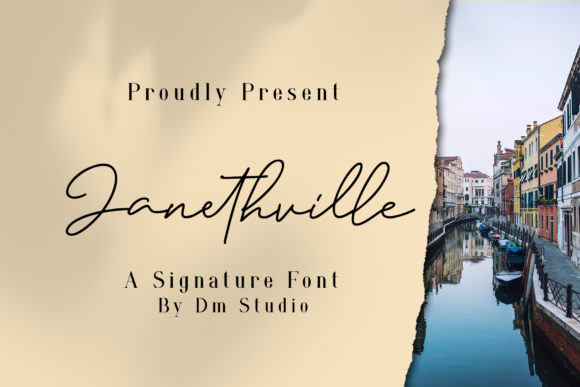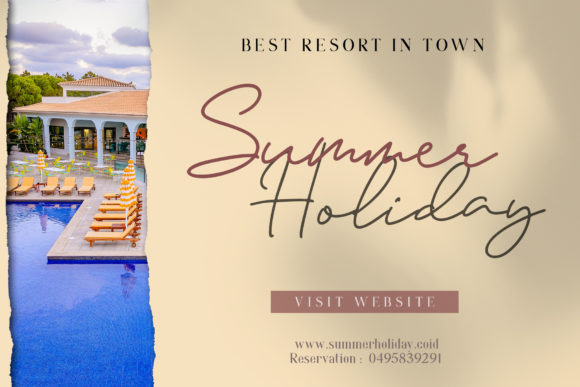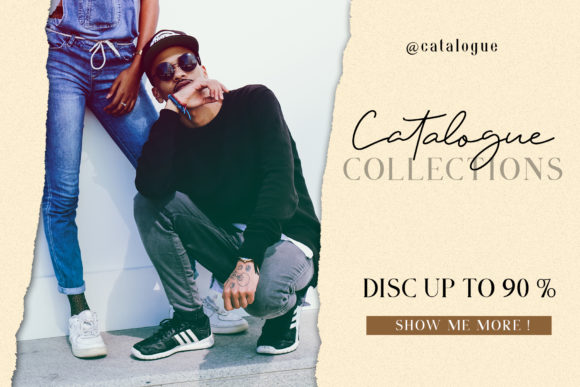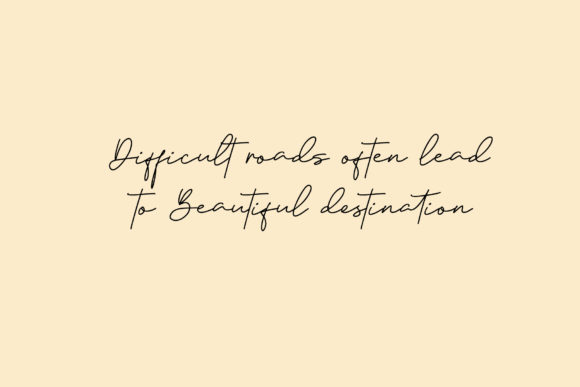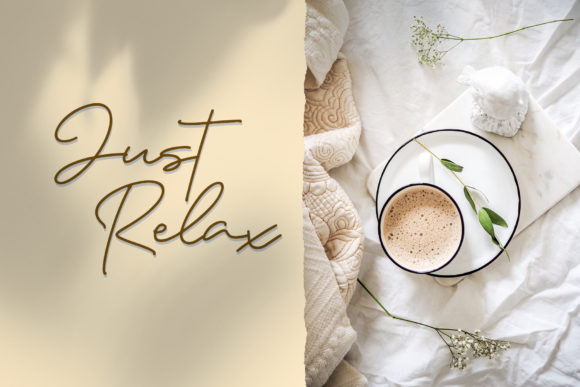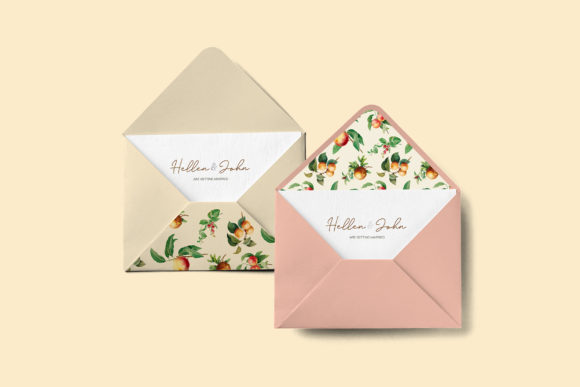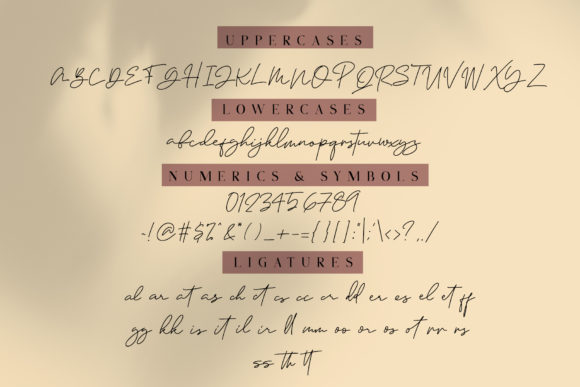
HomeScript FontsJanethville Font Script Fonts Janethville Font FacebookXPinterestWhatsApp Janethville Font Poster 2 Janethville Font Poster 3 Janethville Font Poster 4 Janethville Font Poster 5 Janethville Font Poster 6 Janethville Font Poster 7 About Janethville Font Janethville is a unique and light handwritten font with a bold twist. Get inspired by its unique charm! DOWNLOAD ON CREATIVE FABRICAThis font is sold and delivered by Creative Fabrica. Font Canyon may earn a commission if you buy through this link. People also explored Mikey Jax Bokeseni UltraBlack Expanded Italic Font Virginia Font Shally Script Font Curious Garlic Font Beone Extra Bold Font Rosallinda Signature Font Pillowway Font Laquittea Script 286 0 TagsJanethville Font Previous articleMonterai FontNext articleCamelia Font LEAVE A REPLY Cancel reply Comment: Please enter your comment! Name:* Please enter your name here Email:* You have entered an incorrect email address! Please enter your email address here Website: Save my name, email, and website in this browser for the next time I comment. Personal Use Free Bebas Neue Font Personal Use Free Read more about this font Brandon Bromley Personal Use Free Read more about this font Rionaldo Angelo Personal Use Free Read more about this font Vogue Font Personal Use Free Read more about this font BLOG Modern Sans-Serif Fonts That Brands Love in 2025 In 2025, modern sans-serif fonts remain a top choice for brands looking to project clarity, professionalism, and... How to Install and Use Fonts on Windows, macOS, and Web Projects How to Cut Any Font on Cricut: Convert a Font to SVG (Free) Fonts That Capture the Spirit of New York City